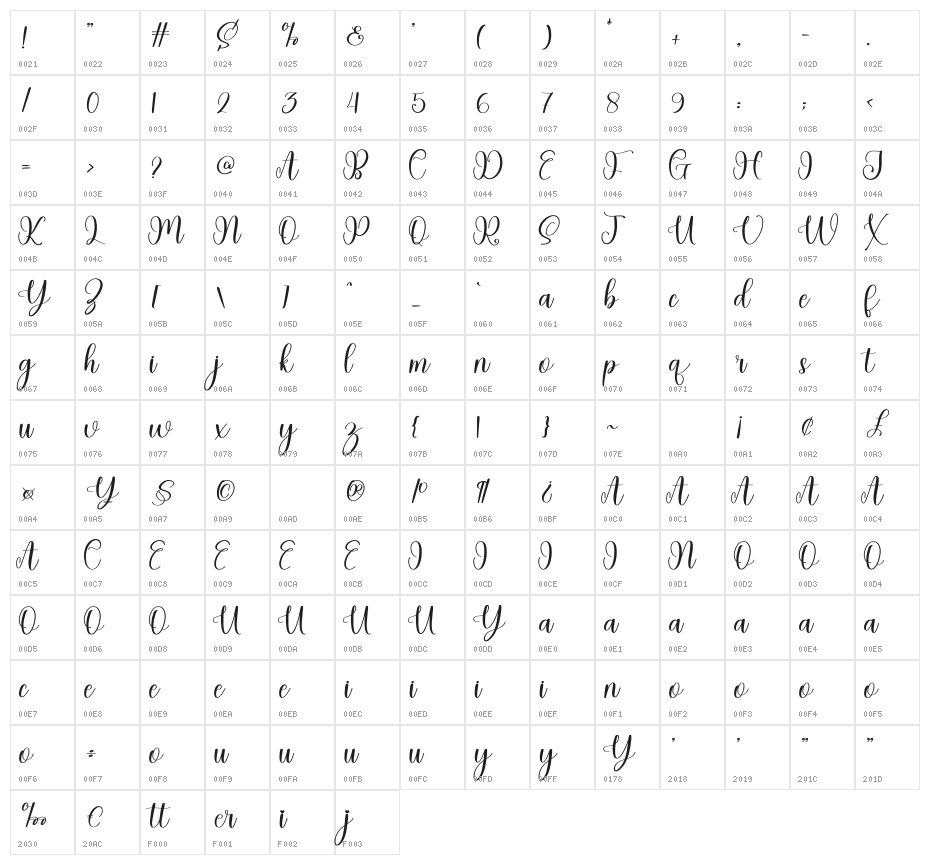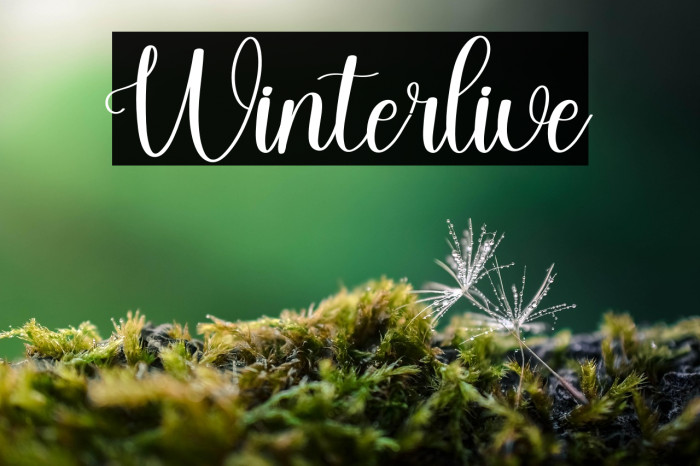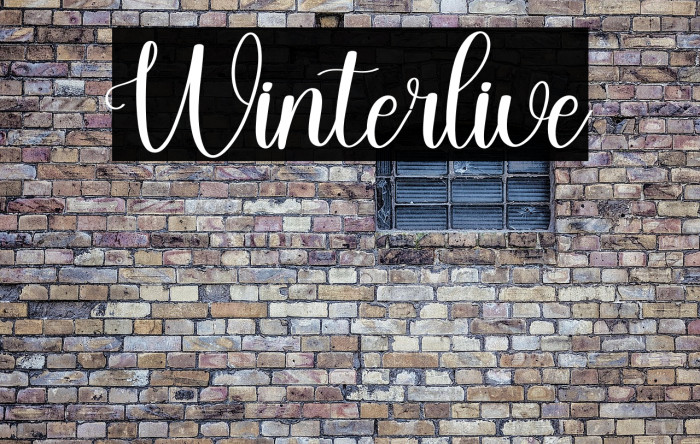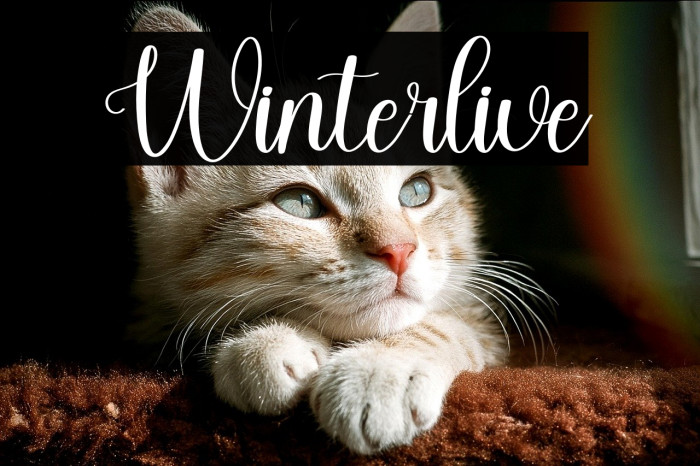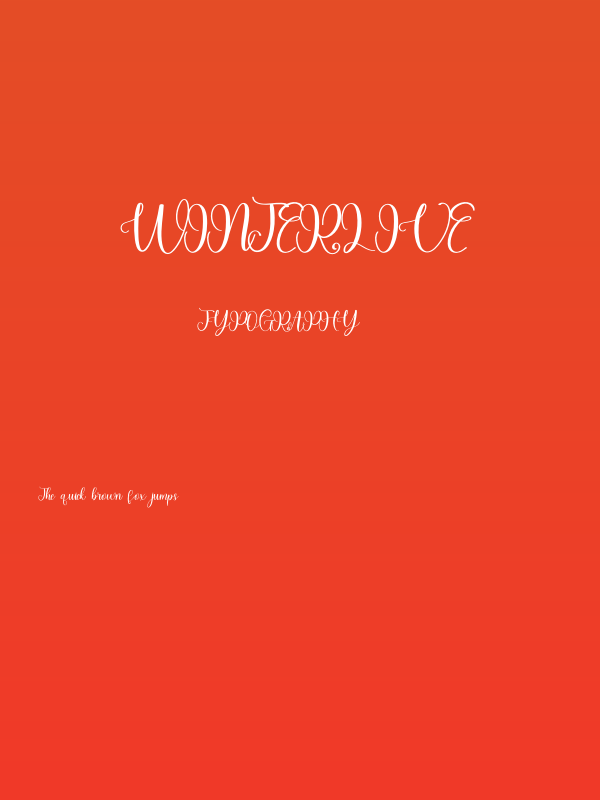
Winterlive Font
Winterlive Description
This font features an elegant and flowing script style, characterized by its graceful curves and loops. The uppercase letters are ornate, with intricate swirls that add a touch of sophistication. The lowercase letters maintain a consistent flow, complementing the uppercase with their smooth and connected strokes. Numbers and special characters are designed with the same attention to detail, ensuring a cohesive look across all elements. The overall appearance is both stylish and refined, making it suitable for formal and decorative purposes.
| Use Case | Logos, Invitations, Decorative text |
| Proposed Projects | Ideal for wedding invitations, elegant branding, greeting cards, and decorative signage. |